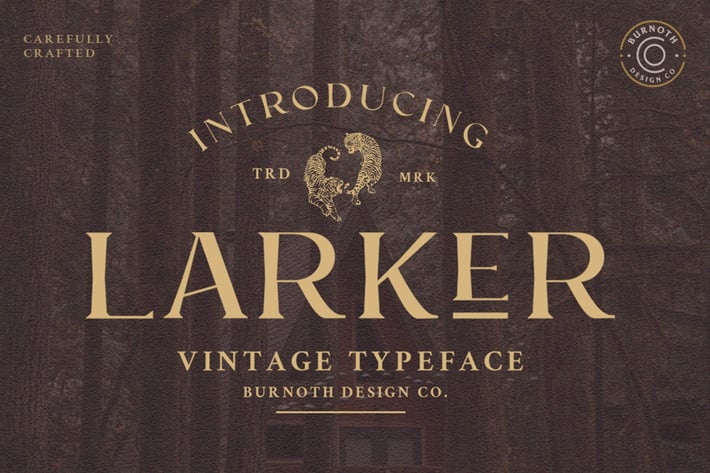
Larker - Vintage Font
Introducing Larker Vintage Sans Serif Font
inspired by the vintage old american which come with a lot alternative character
Made carefully to create the perfect texture and suitable for each of your projects also great for Logotype, Branding Design, Logo Design, Digital Lettering Arts, T-Shirt/Apparel, Poster, Magazine, Signs, Advertising Design, and any vintage design needs.